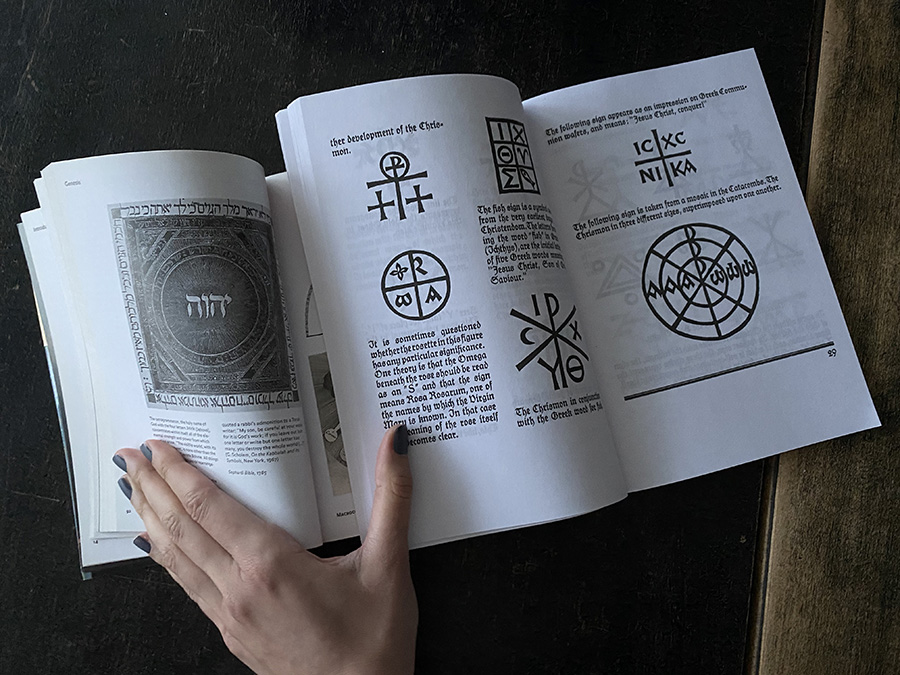
This research started as a graduation book proposal in 2017 at Royal College of Art, Critical Writing in Art & Design.
āLetterforms & Magicā project is set to present original research material to map out the breadth of interest in letterforms in Western magical culture. A graphic designer, whose daily job consists of studying and designing letterforms and signs for different cultural contexts, can find a well of inspiration in studying magical artwork. Flicking through a book on graphic design or typography can often feel much like skimming through a book on magic. They are both likely to contain a diverse set of visual patterns, complex image constructions, symbols from different cultures and words in multiple languages. This study emerged from a personal bookshelf that encompasses books on alchemy, typography, strange phenomena, psychoanalysis and graphic design. With such a diverse set of books to hand, I found it curious that, when opened to a random page and juxtaposed to one another, the books bare similar kinds of interests.
Through my research, Iāve noticed a trend of typographers straying from their design practice proper to explore the cultural evolution of a letterform, and that these practitioners often had a general research interest in symbols. For instance, in 1928 Adrian Frutiger, a prominent Swiss typographer and a designer celebrated for fonts such as Univers and Avenir, published Signs and Symbols, a book on āTheir Design and Meaningā. In his ambitious book, Frutiger categorises development and formal evolution of different symbols around the world, including the evolution of alphabets. In The Book of Signs, another prominent typographer, German Rudolf Koch writes about different signs and their symbolic meaning in Freemasonry, Alchemy, Astrology, Religion, Botany, amongst other disciplines. When a two-page spread from Signs and Symbols and The Book of Signs is juxtaposed with a spread from Alchemy & Mysticism by Alexander Roob, a common interest in graphic systems is exposed.
The term āmagicā in my research is applied to a broad range of writing that are often interchangeably described as mystical, esoteric, religious, spiritual, magical, supernatural, or occult. The word āmagicā is specifically selected here because it is the word which holds greatest resonance with the popular culture. Indeed, visual examples that are selected have not been brought out of esoteric obscurity, but, on the contrary, plucked from a range of content that has been circulated in Facebook groups, showcased in contemporary exhibitions, republished in recent editions or found through Google searches and anonymous fan pages.
From the volume of contemporary interest, one can deduce that magic still lives among us: whether as a hobby, as an intellectual interest, or as a powerful belief aligning one to a particular cause. For this latter quality, magic is both serious and dangerous. Magic possesses both the light and dark shades of feelings, and a belief in magic can stimulate an irrational pursuit to the point of fanaticism. It is important to be aware of visual communication around us, to recognize the kind of beliefs that are embedded in magical art and the mundane.